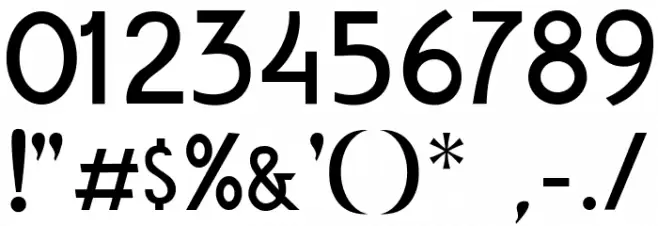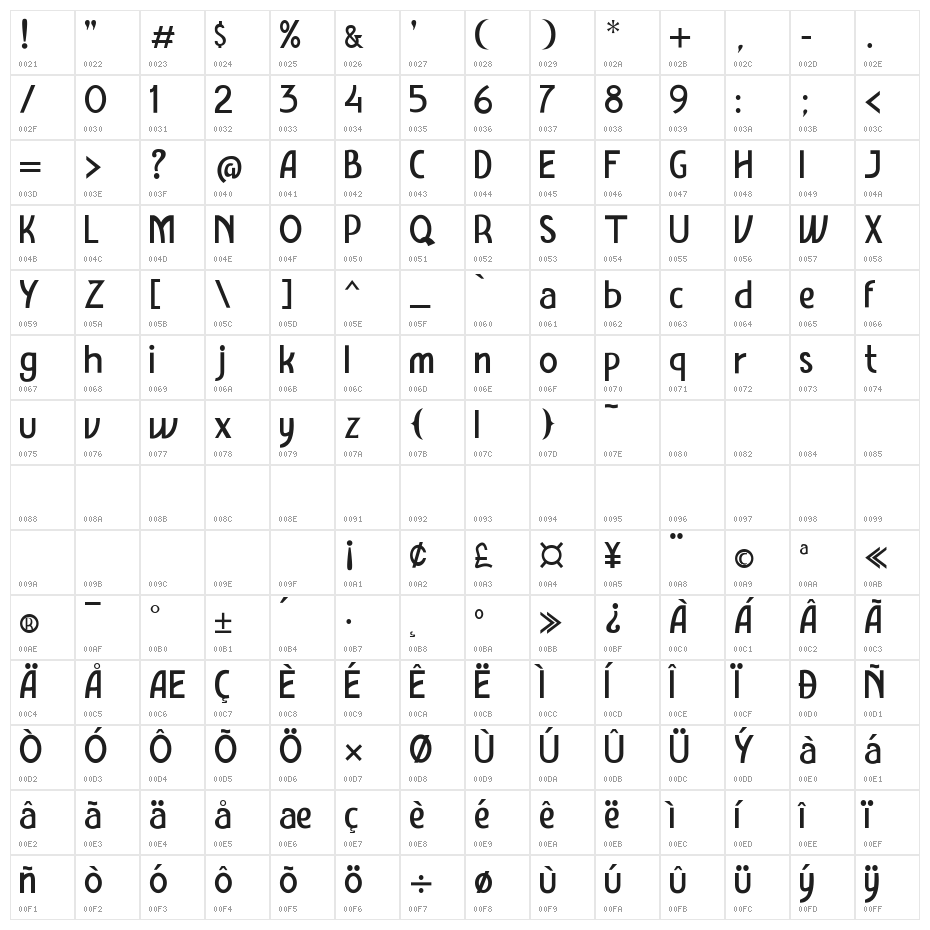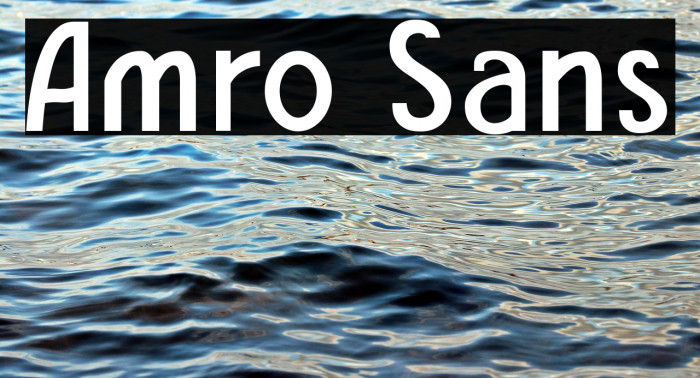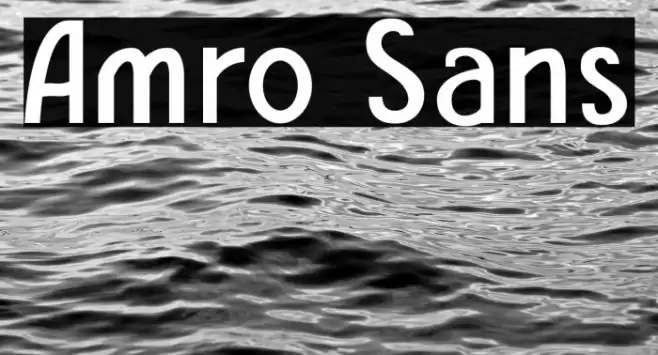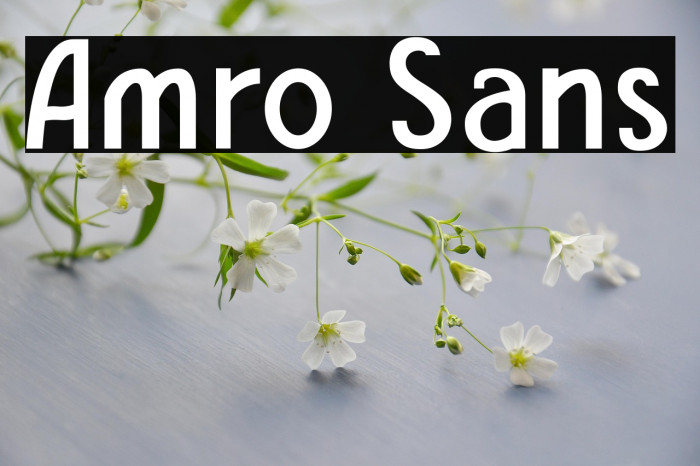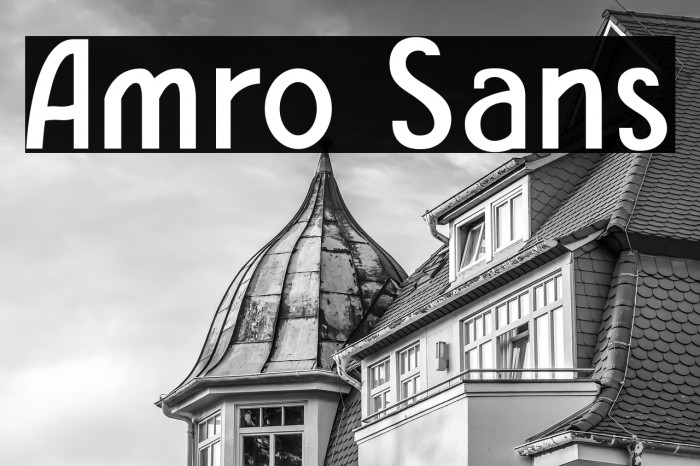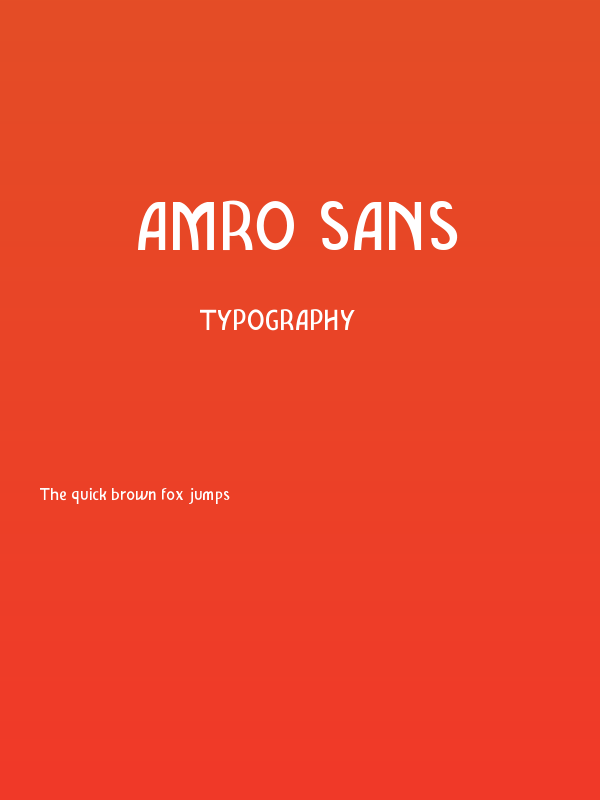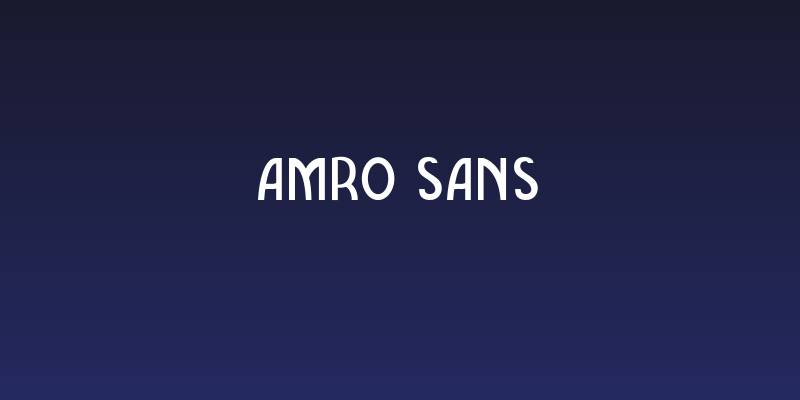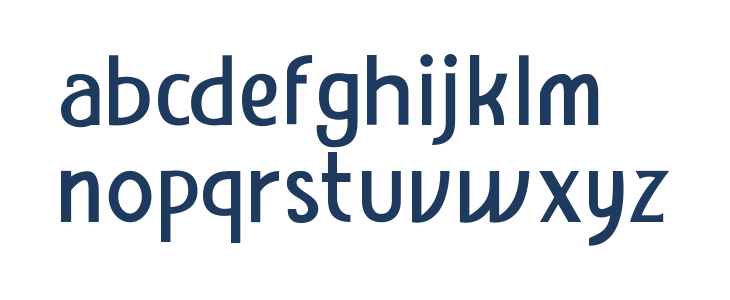
Amro Sans Font
Amro Sans Description
This font features a modern and clean sans-serif design with a slight geometric influence. The characters are well-balanced, with a consistent stroke width that gives it a uniform appearance. The uppercase letters are bold and assertive, while the lowercase letters maintain a friendly and approachable look. The numerals are clear and easy to read, making them suitable for various applications. Special characters are distinct and well-integrated into the overall design, ensuring versatility in usage. The font's style is both contemporary and timeless, making it suitable for a wide range of design projects.
| Proposed Projects | Ideal for branding, advertising, web design, and editorial projects. |